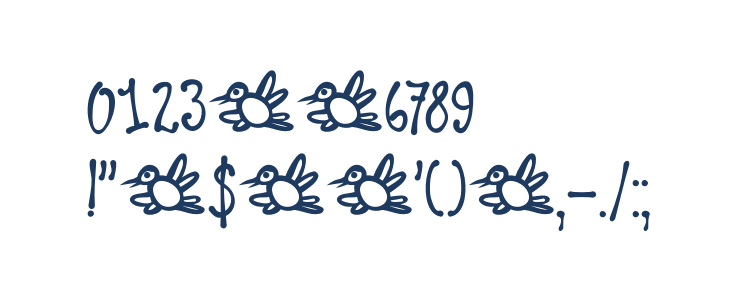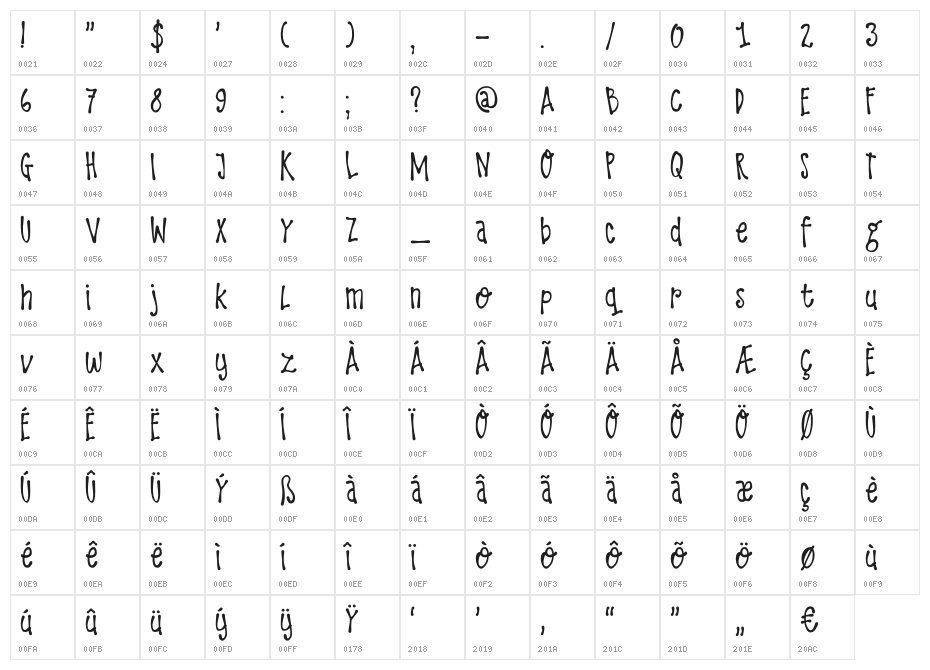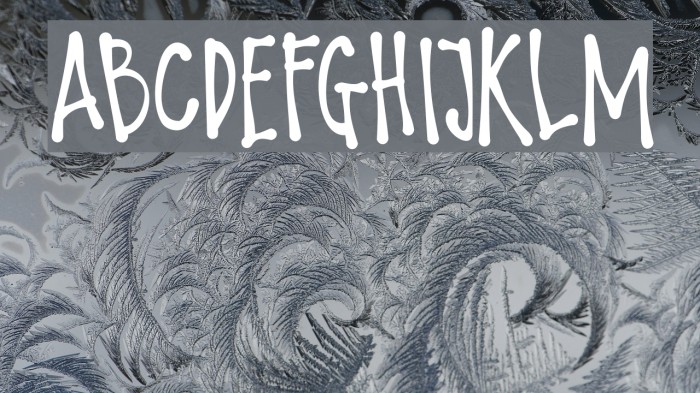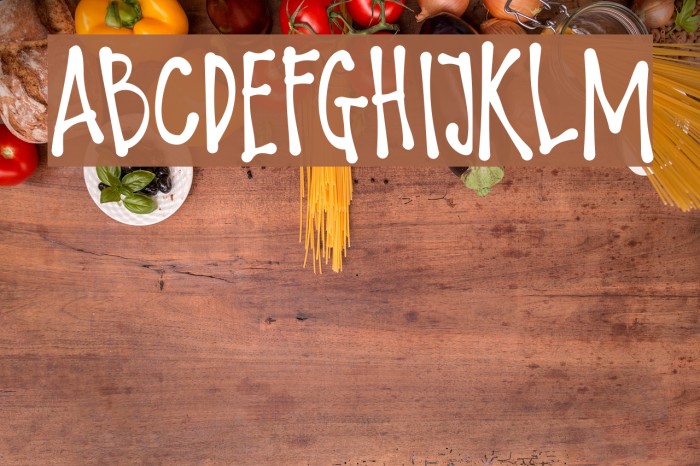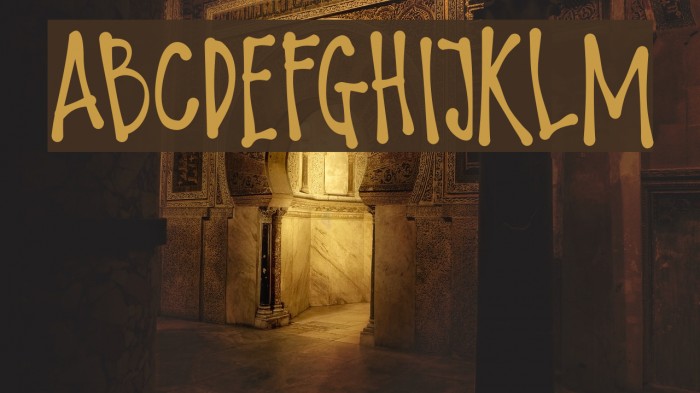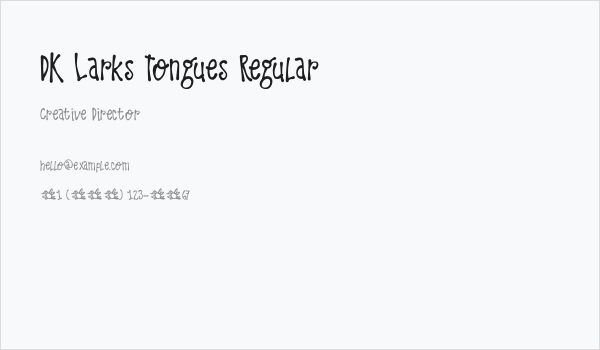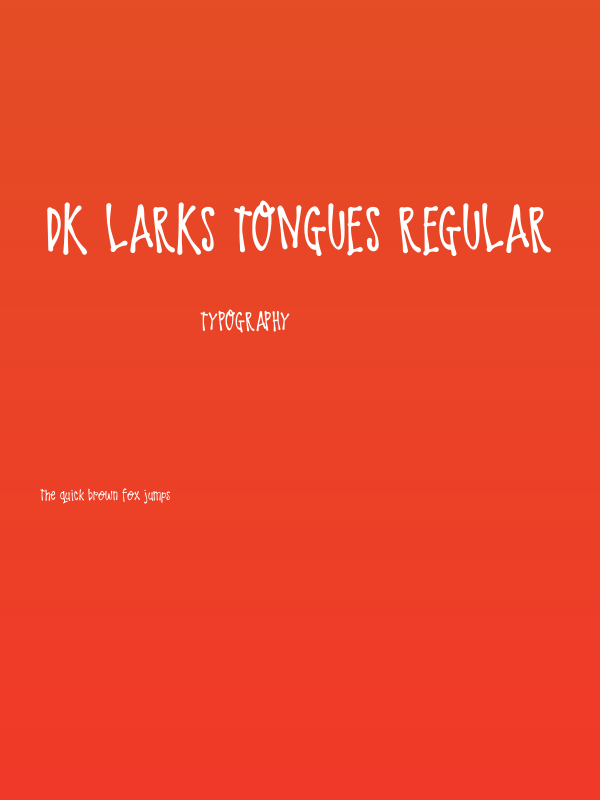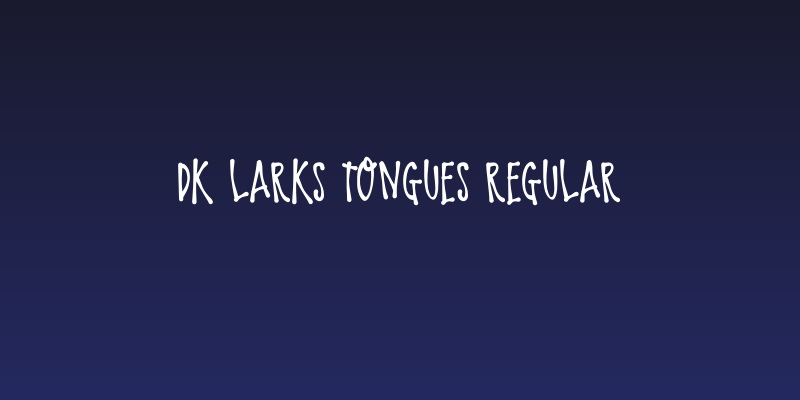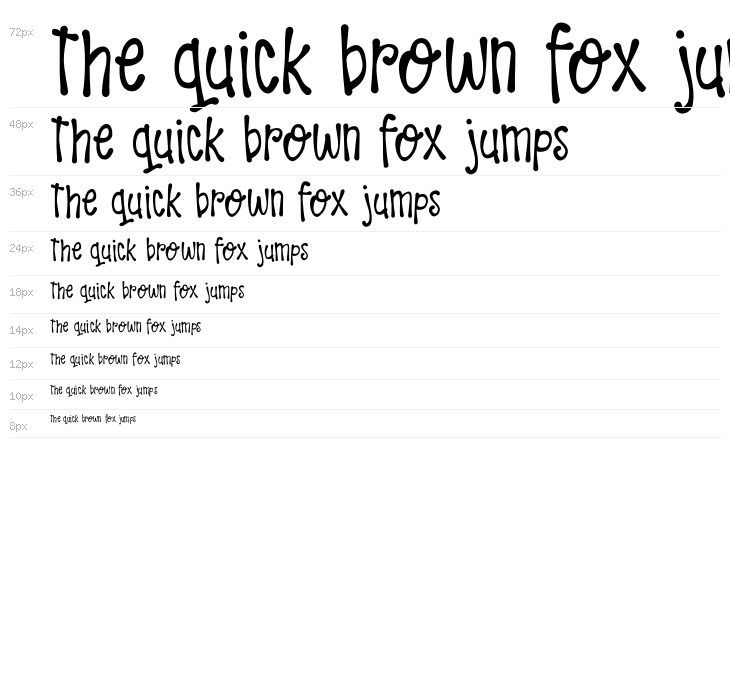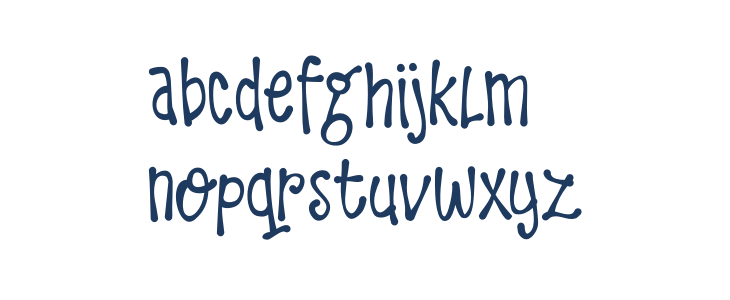
DK Larks Tongues Regular Font
DK Larks Tongues Regular Description
This playful and whimsical font features a hand-drawn style with irregular, organic shapes. The letters have a casual, informal appearance, with varying stroke widths that add to its charm. The uppercase and lowercase letters are distinct yet cohesive, maintaining a consistent style throughout. The numbers and special characters are equally expressive, with unique, quirky designs that complement the overall aesthetic. This font exudes a sense of fun and creativity, making it perfect for projects that require a touch of personality and flair.
| Proposed Projects | Ideal for children's books, greeting cards, playful branding, and creative posters. |